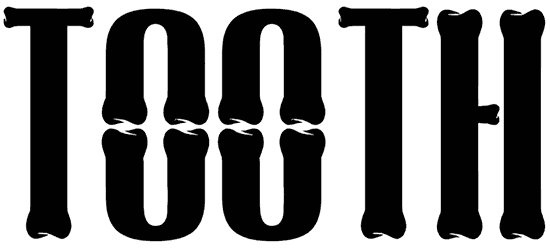
Tooth Font
When you look at the Tooth font, its entertaining style makes you stare. This bone font has a unique form that seems memorable to the viewers.
You may use the Tooth font in several situations, such as posters, applications, and video games, while it does not support lowercase letters, numbers, and symbols. This scary font’s letters are tall and have a skeleton shape, creating an exciting vibe. So give this font a try and impact your audience.